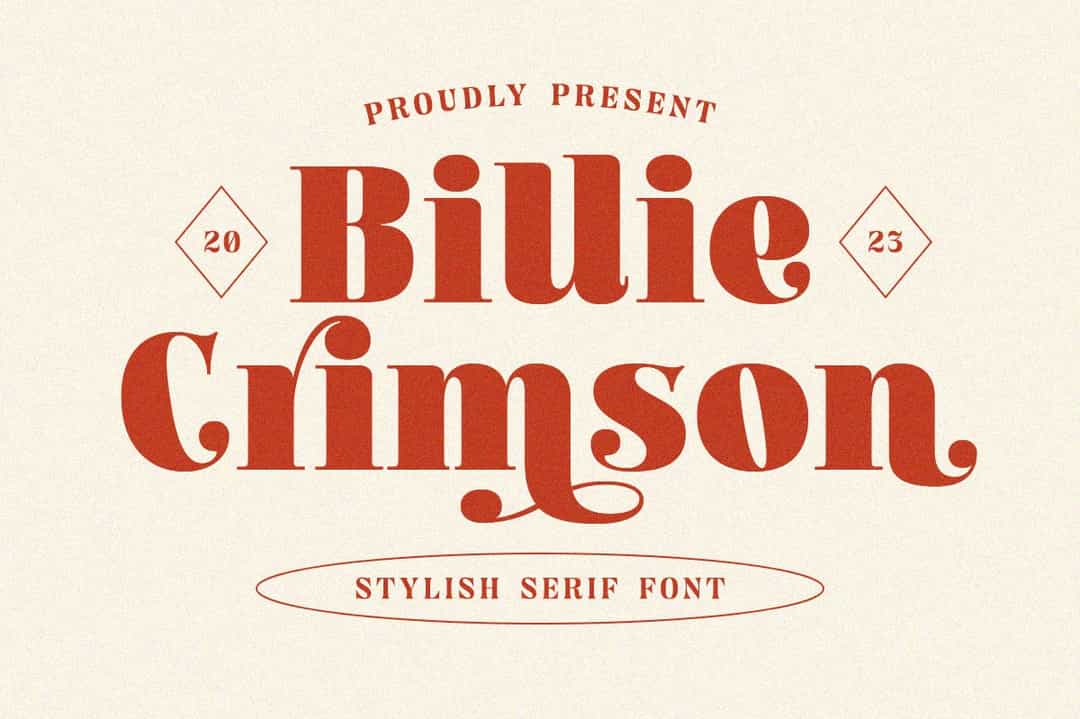
Billie Crimson is an elegant serif font that exudes sophistication and timelessness, perfect for creating logos as well as various formal formats like labels, invitations and magazines. Additionally, its classic appearance lends itself perfectly to logo designs, labels, invitations and magazines as well as greeting cards for weddings packaging fashion makeup stationery labels novels or any other advertising purposes. Furthermore, its variety of alternative characters adds further versatility and individuality for your designs.